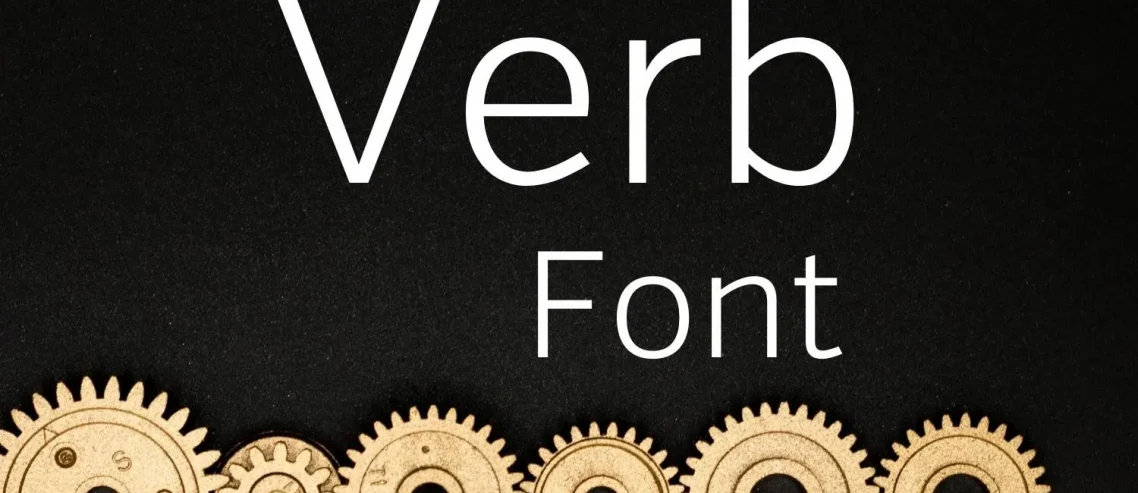
Verb Font Free Download
Verb Font is a typeface designed specifically for creating text emphasizing the action of This font. It comes in two weights, regular and bold, each with its own set of glyphs to make your font really stand out! There are two weights available, regular and bold. Each has its own set of glyphs to make …